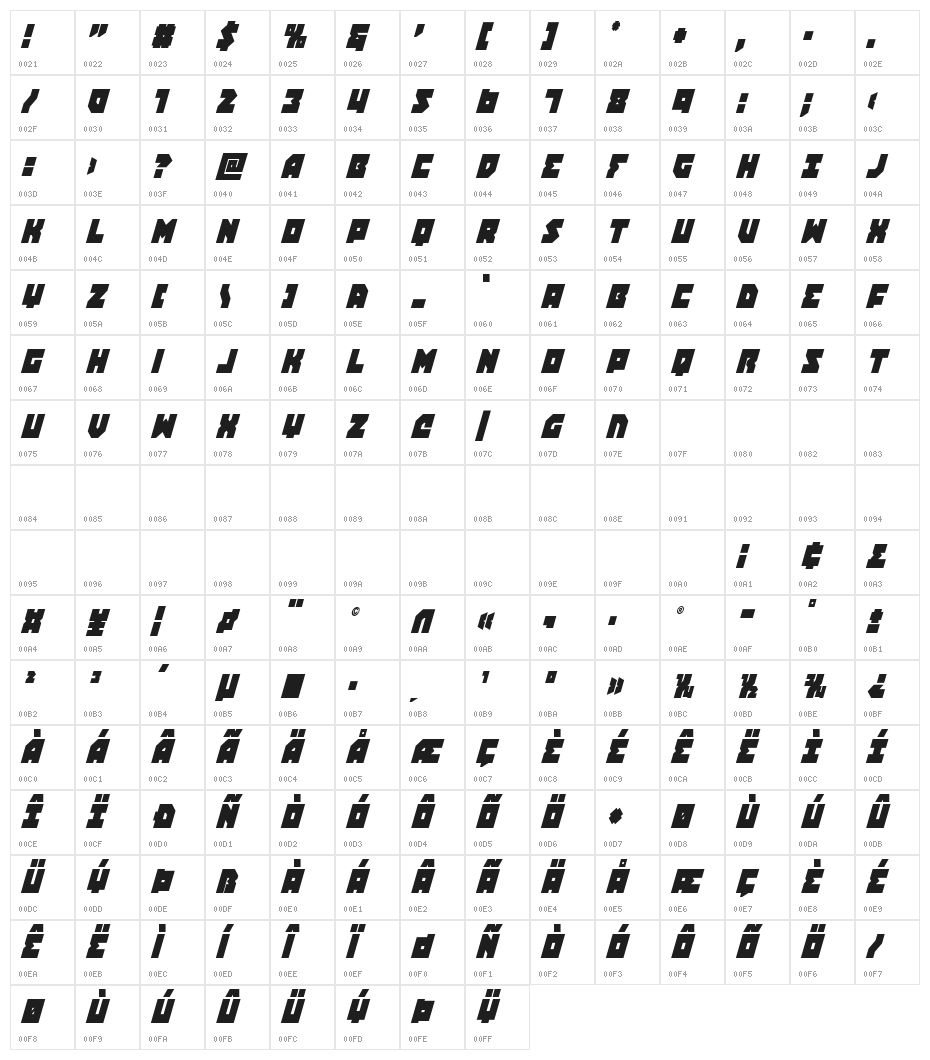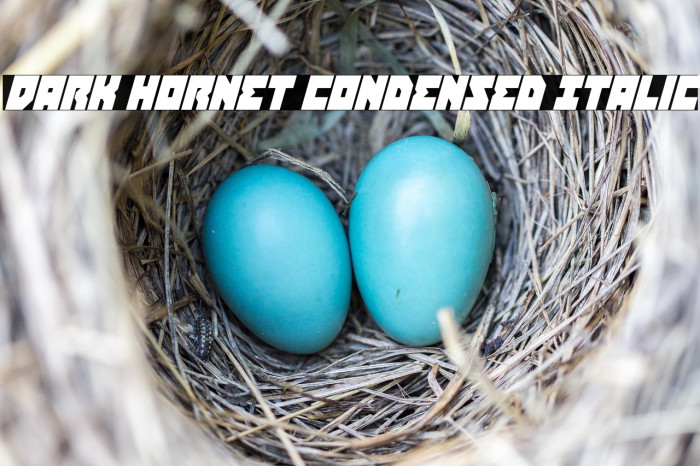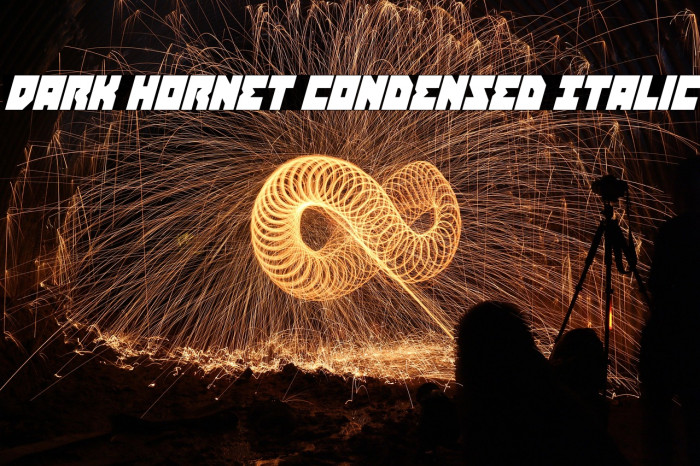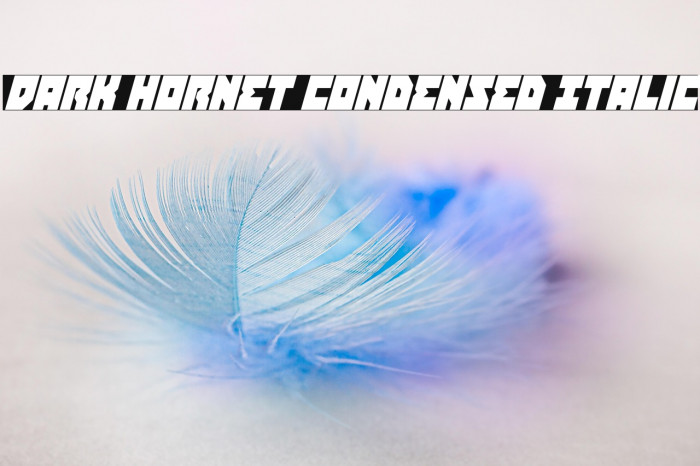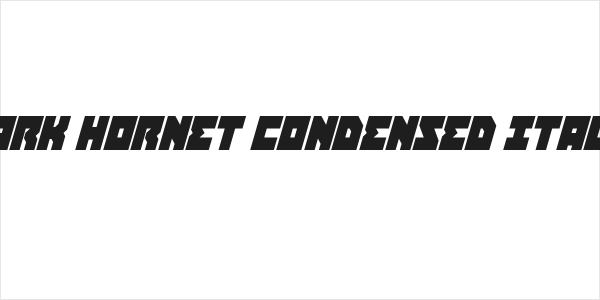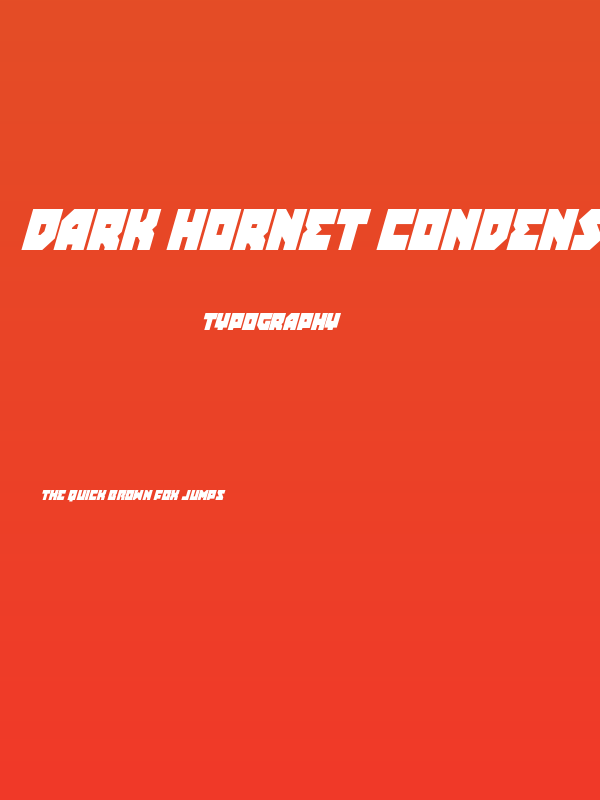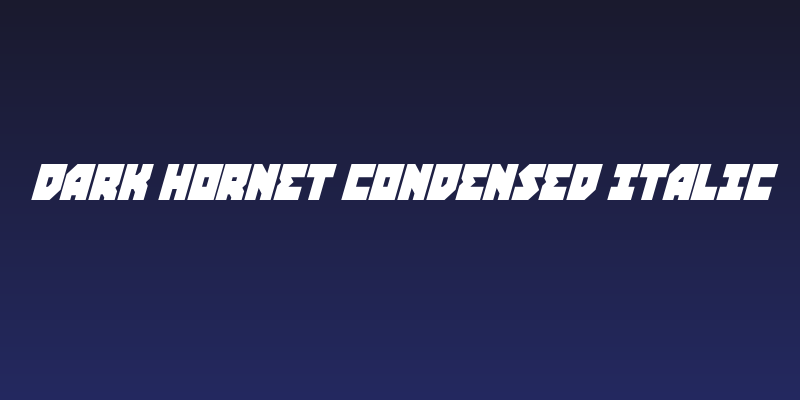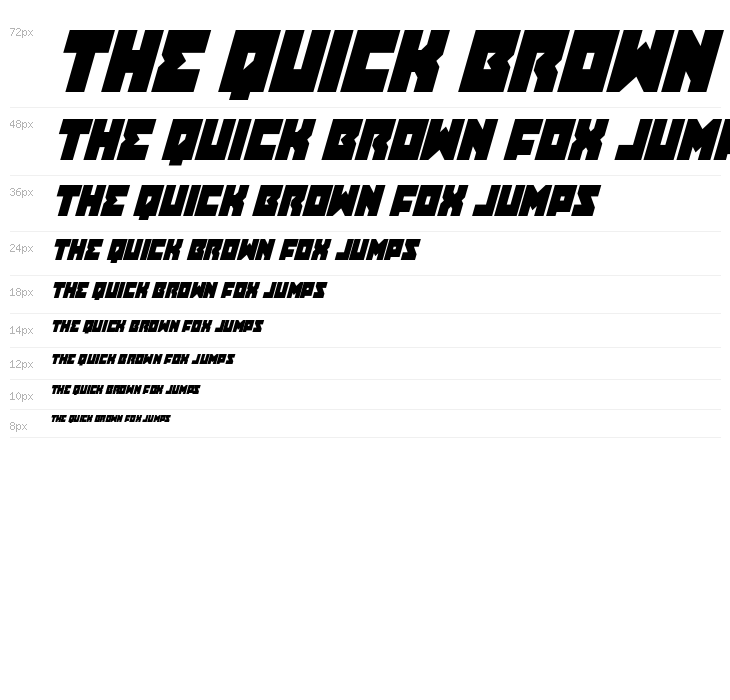
Dark Hornet Condensed Italic Font
Dark Hornet Condensed Italic Description
This font features a bold and dynamic design with a strong geometric influence. The characters are sharply angled, giving them a futuristic and aggressive appearance. The condensed nature of the font allows for tight spacing, making it suitable for impactful headlines and titles. The italic style adds a sense of motion and urgency, enhancing its modern aesthetic. The uppercase and lowercase letters maintain a consistent style, with numbers and special characters designed to match the bold, angular theme. This font is ideal for projects that require a strong visual presence and a contemporary feel.
| Proposed Projects | Ideal for sports branding, video game titles, tech event posters, and dynamic advertising campaigns. |